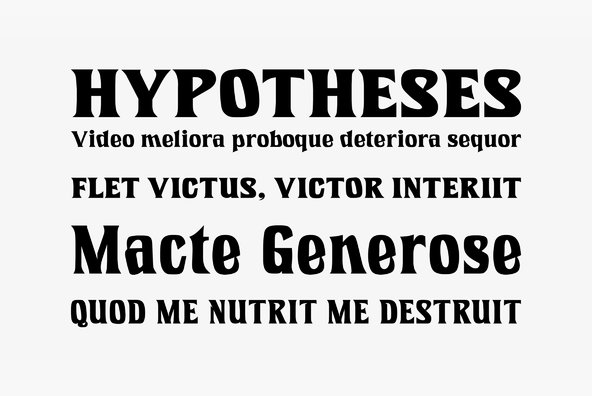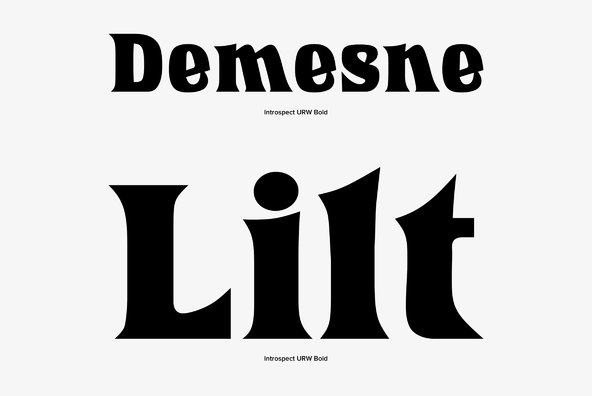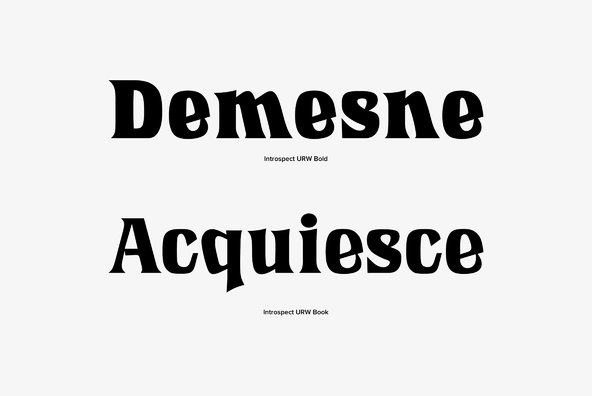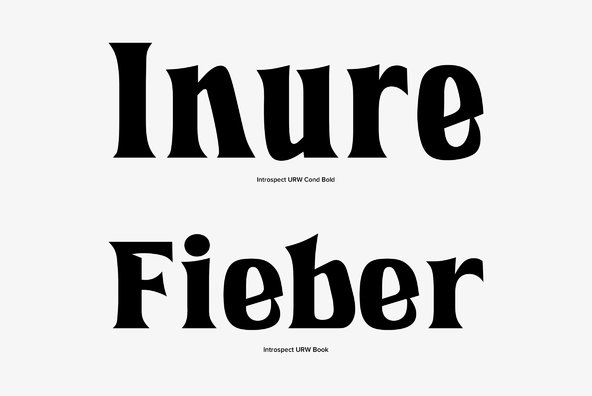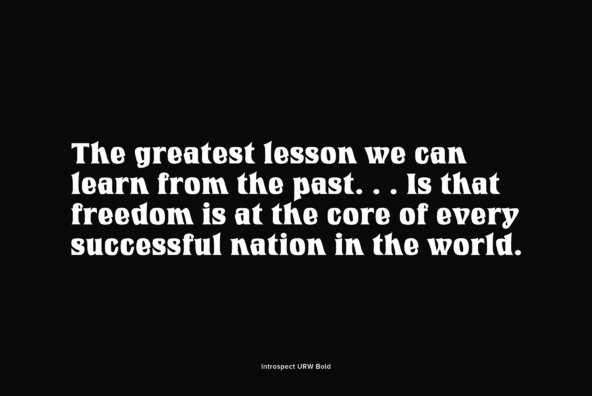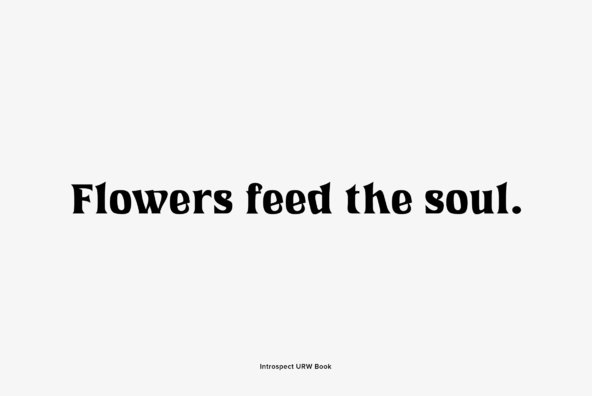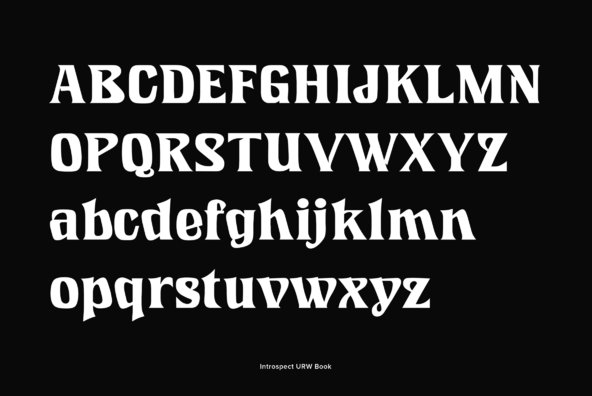
Designed by Phil Martin in 1971, Introspect is funky and unique retro styled serif design. Works great in music related projects with a slight vintage, aged or retro twist.